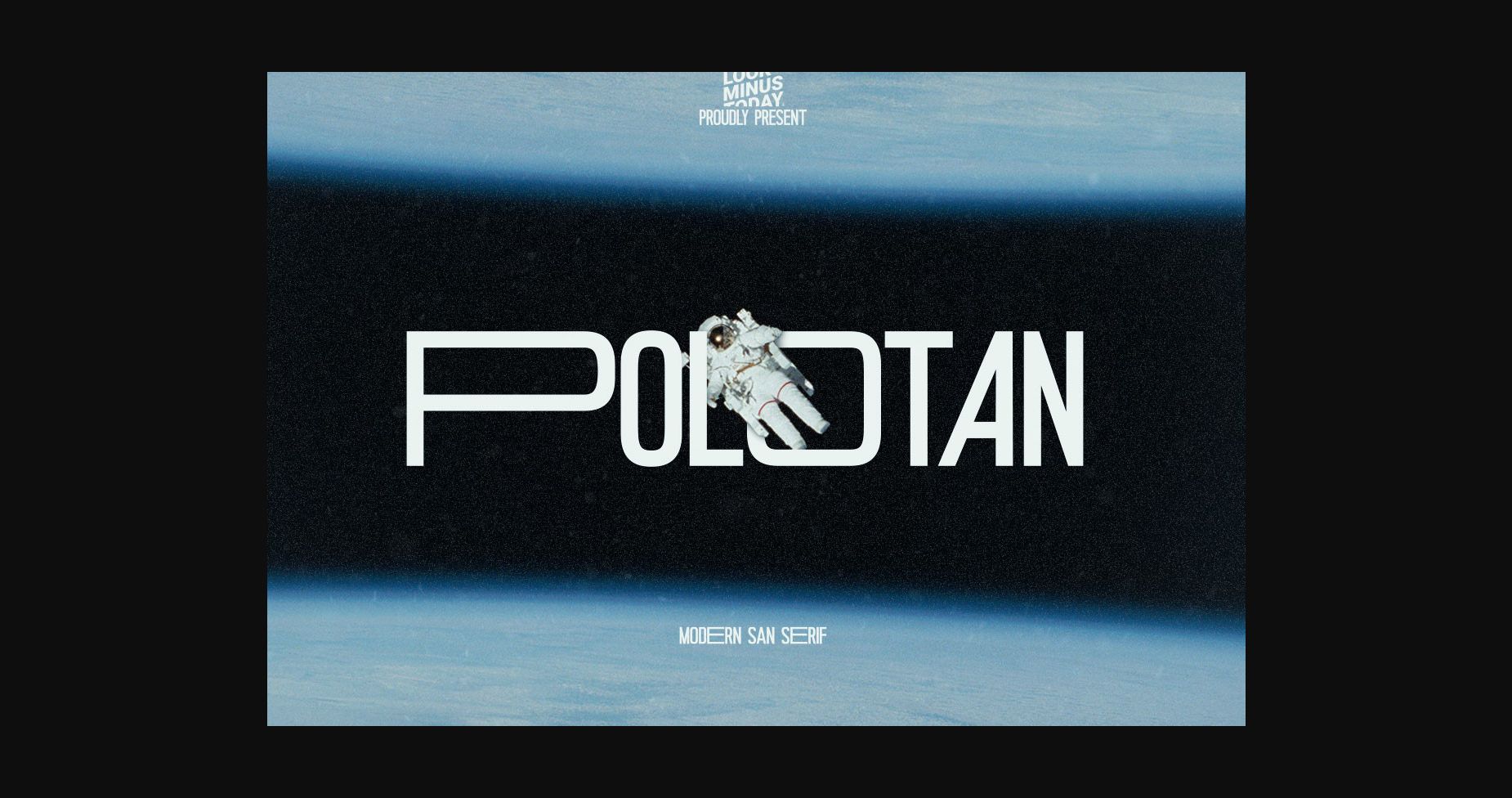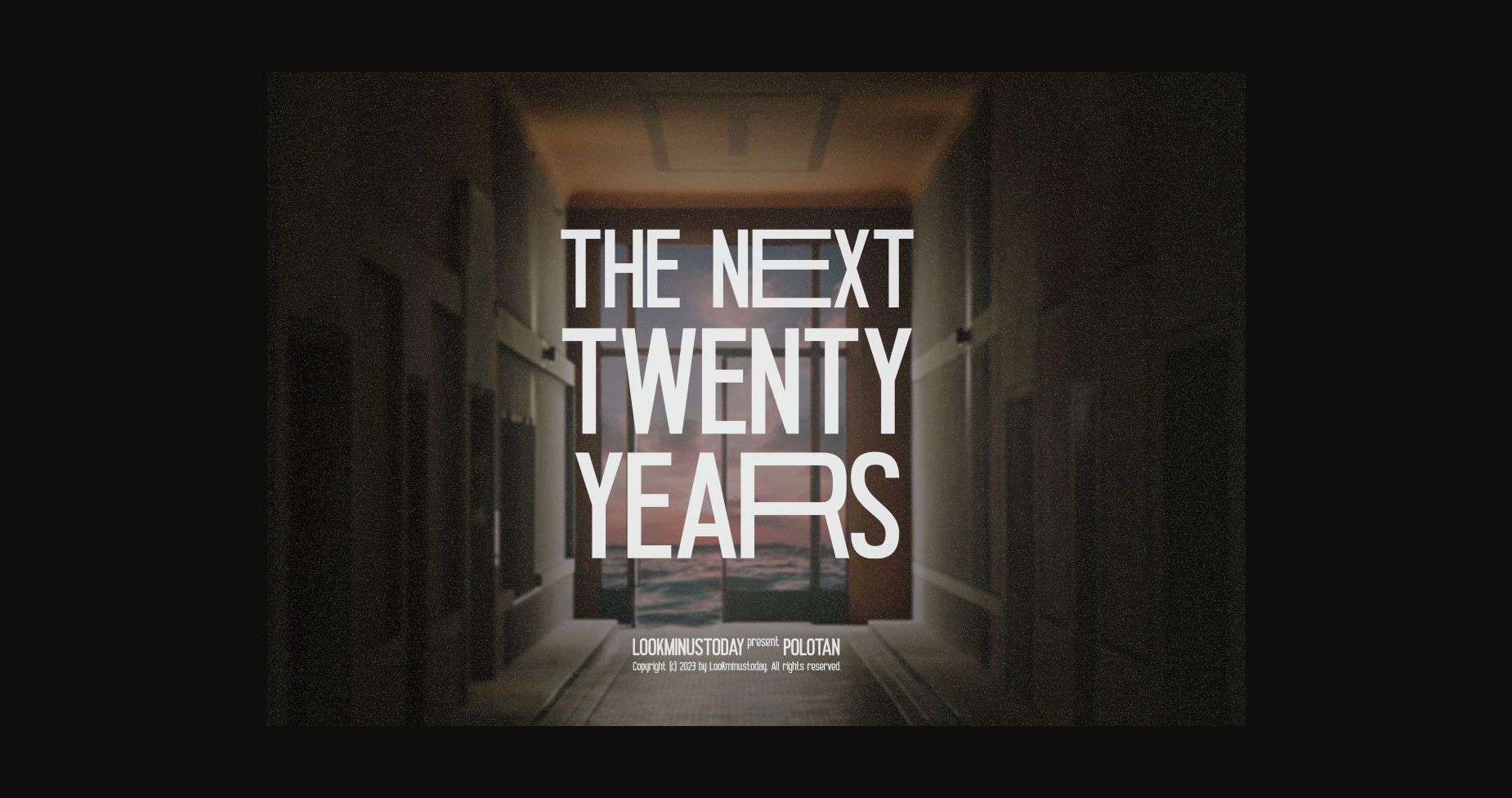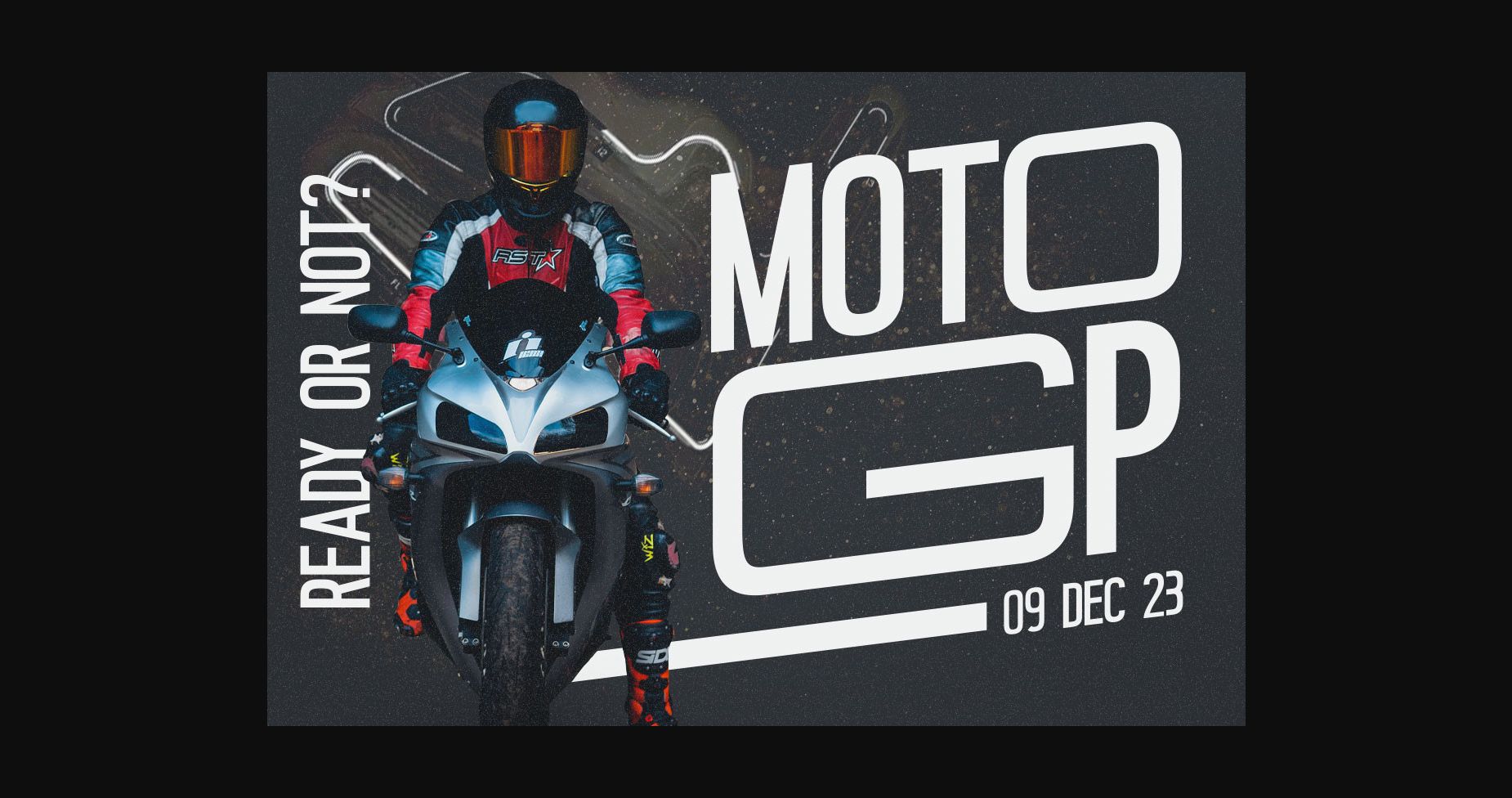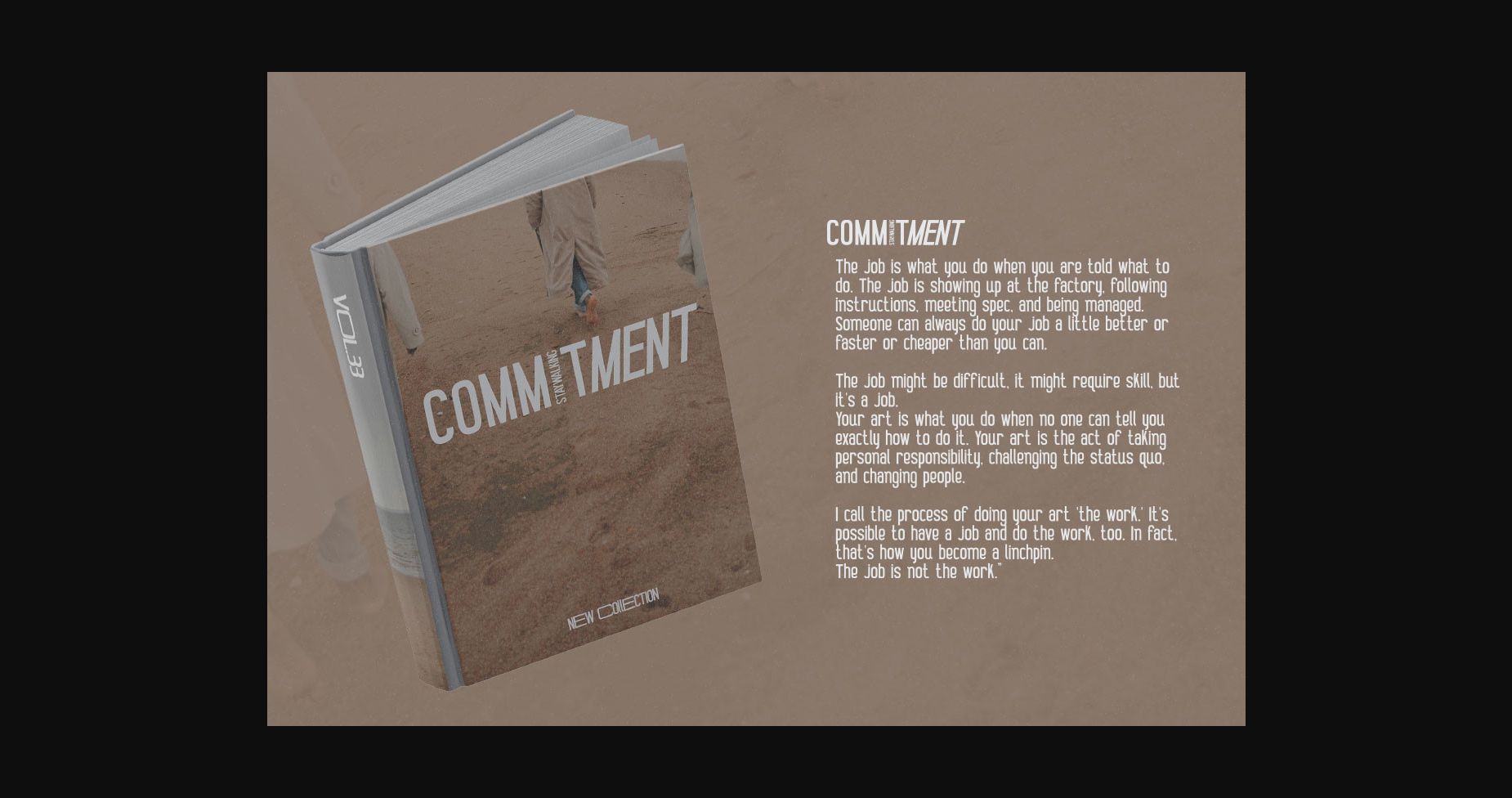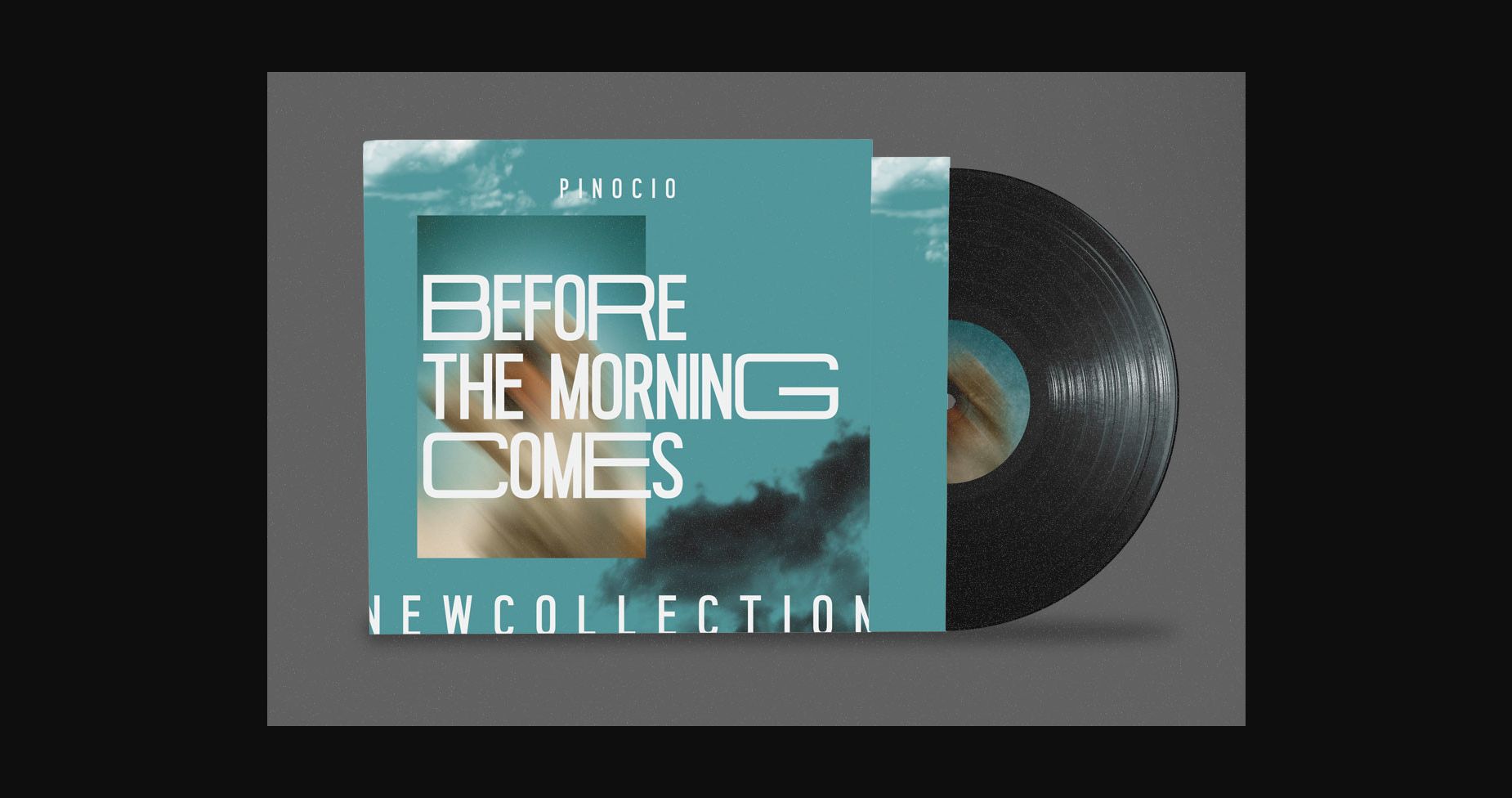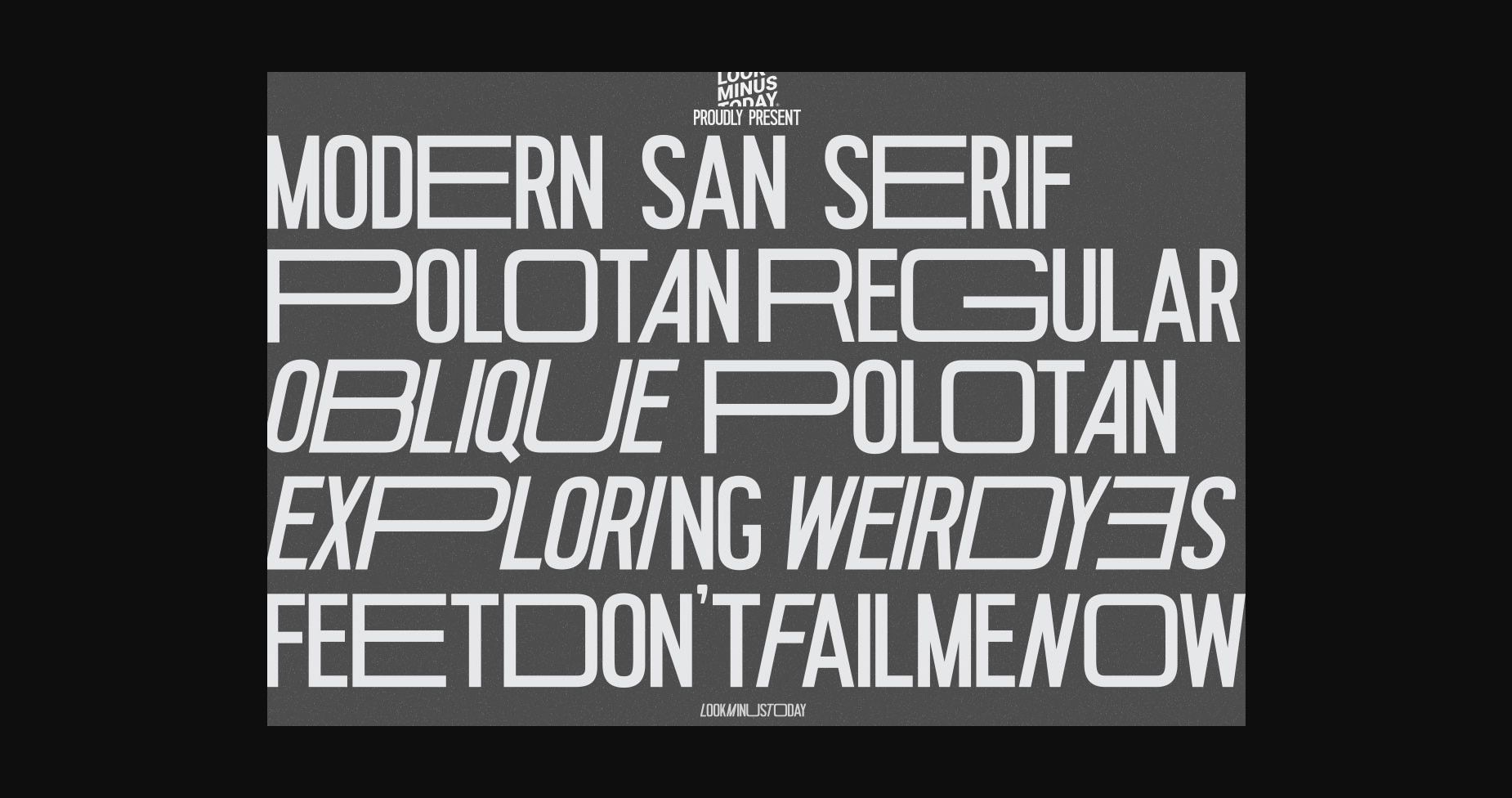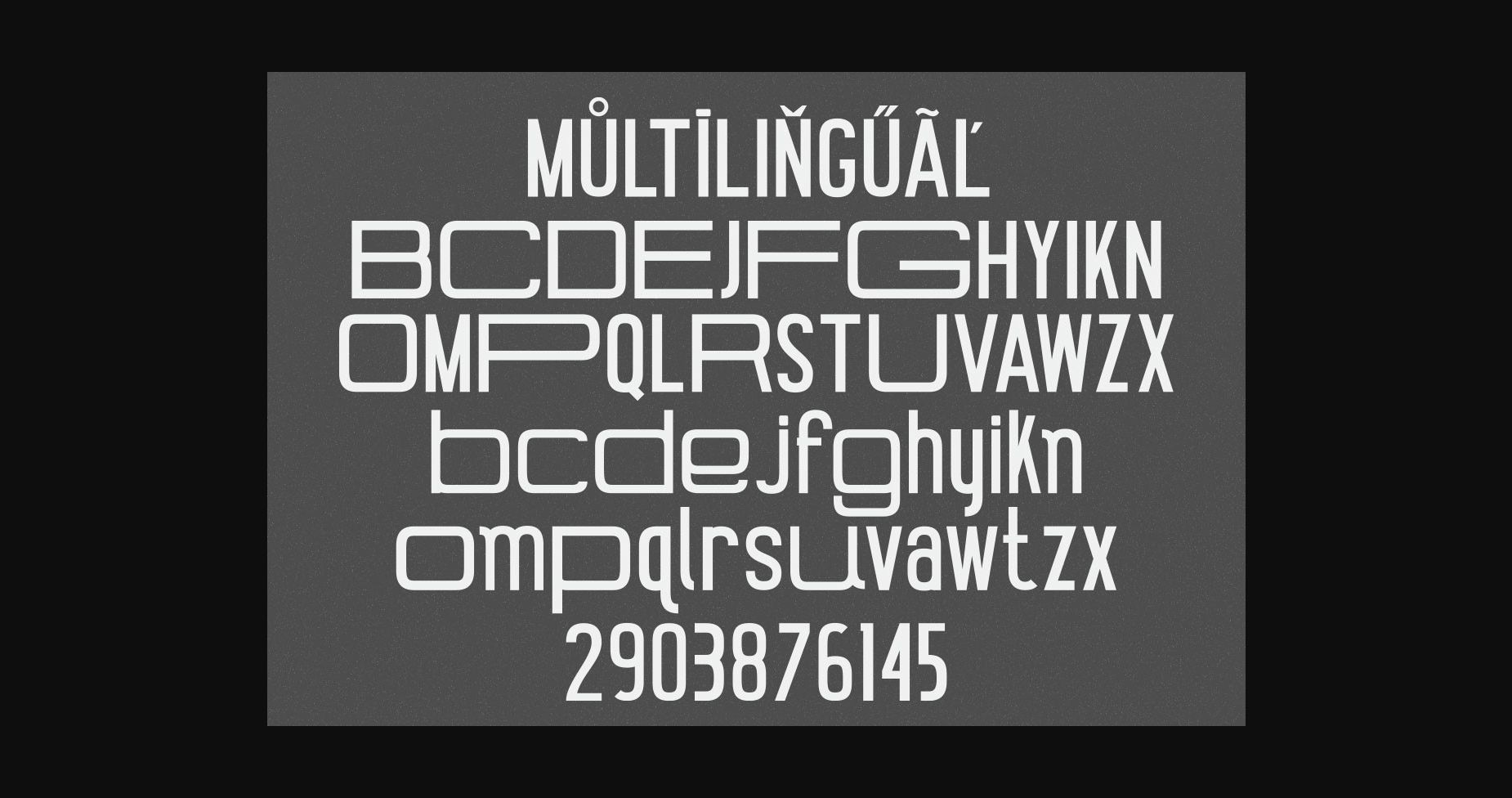
Polotan Font
About Polotan Font
Polotan font is the perfect blend of contemporary design and minimalistic charm. Its sleek lines and refined curves create a versatile, yet eye-catching look that can be used for anything from logos and branding to websites and printed materials. This font is PUA encoded which means you can access all glyphs and swashes with ease!